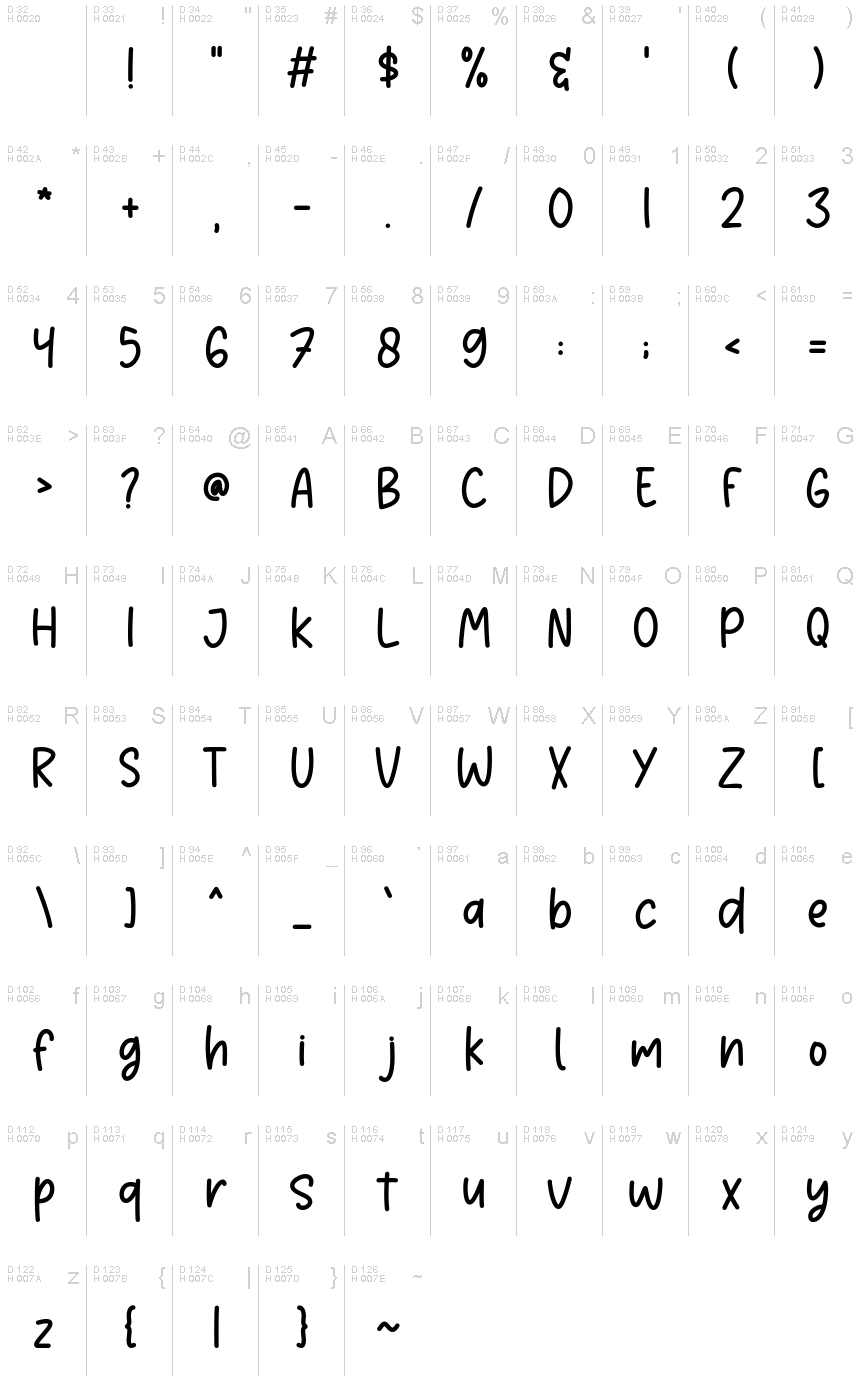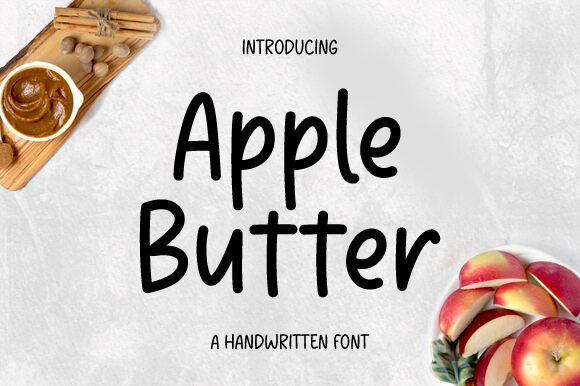
Apple Butter
Apple Butter, designed by Graphix Line Studio, is a font that exudes warmth and approachability with its handwritten style. Its fluid strokes and playful characters mimic the charm of personal penmanship, making it an inviting choice for designs that require a touch of human touch. The gentle sway of its letters adds a casual yet elegant flair to any text it graces.
Ideal for branding, packaging, and social media graphics, Apple Butter brings an authentic and cozy feel to projects aiming for a handcrafted look. It's particularly well-suited for industries like food and beverage or artisanal goods where an intimate connection with the audience is key.